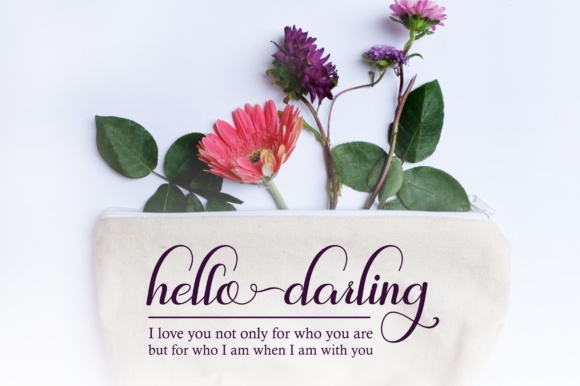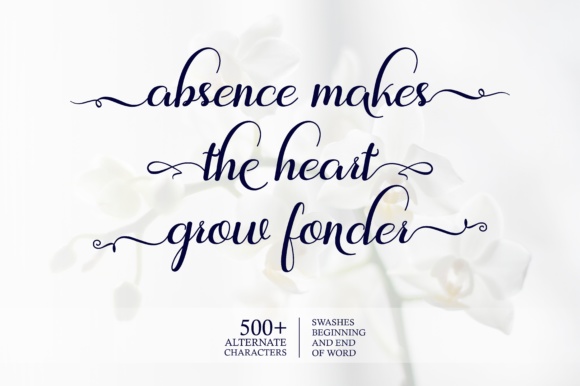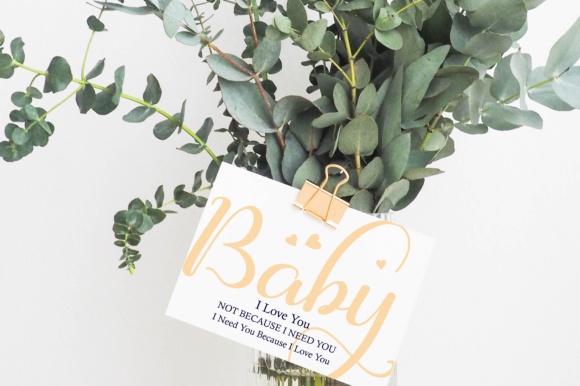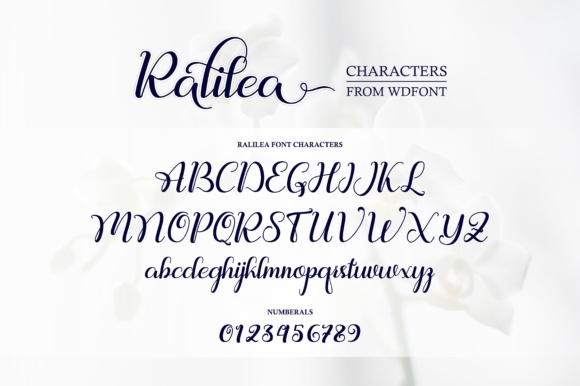
Introduction to Ralilea Font
Ralilea is a beautiful, smooth handwritten font that is perfect for projects that need an elegant headline font.
This font has swashy alternates and looks great in printed materials .
Key Features of Ralilea Font
Why Choose Ralilea Font?
Ralilea Font offers exceptional quality and versatility, making it a valuable addition to your design toolkit. Whether you’re creating for personal projects or commercial use, Ralilea Font delivers professional results.